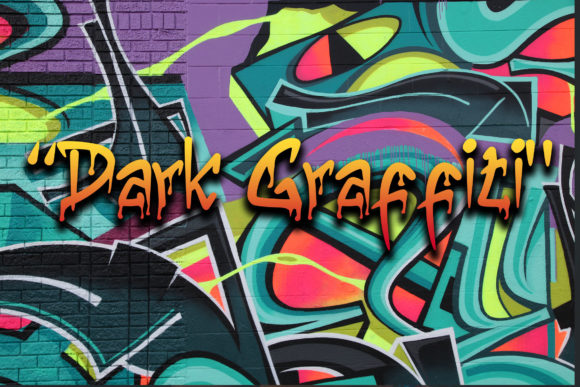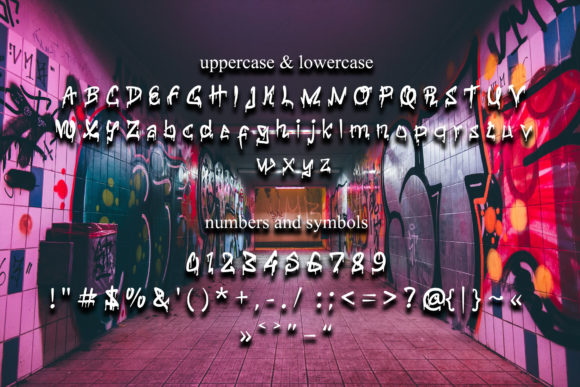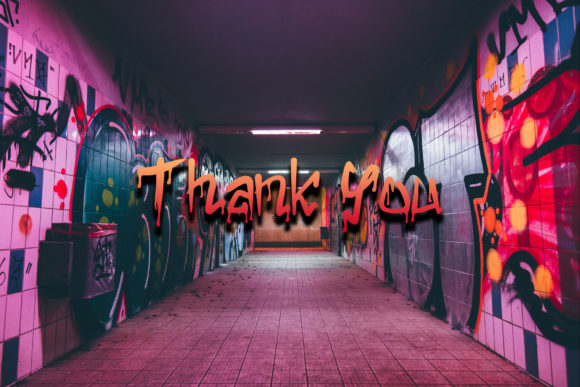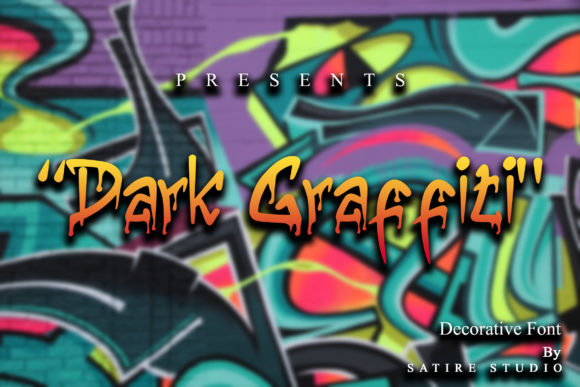
Drak Graffiti Font: Elevate Your Designs with a Touch of Urban Flair
Are you a designer or crafter looking to add a dash of edginess to your creations? Look no further than the Drak Graffiti Font! This decorative font is perfect for those who want to infuse their designs with a melting graffiti style that’s sure to turn heads. In this article, we’ll dive into the world of Drak Graffiti Font, exploring its features, uses, and benefits.
What is Drak Graffiti Font?
Dark Graffiti, also known as Drak Graffiti Font, is a unique and decorative font that boasts melting graffiti-style characters. Its distinctive look is perfect for creating eye-catching designs that demand attention. Whether you’re working on invitations, greeting cards, branding materials, business cards, quotes, posters, or more, this font is sure to elevate your creations.
Key Features of Drak Graffiti Font
- Melting Graffiti Style: The Drak Graffiti Font features characters that appear to be melting, giving it a dynamic and edgy look.
- Decorative: This font is perfect for decorative designs, adding a touch of urban flair to any project.
- Versatile: Use it for a wide range of applications, from invitations and greeting cards to branding materials, business cards, and posters.
Uses of Drak Graffiti Font
The Drak Graffiti Font is incredibly versatile, making it suitable for various design projects. Here are some ideas to get you started:
- Invitations: Add a touch of urban chic to your invitations, making them stand out from the crowd.
- Greeting Cards: Create unique and eye-catching greeting cards for special occasions.
- Branding Materials: Use the Drak Graffiti Font to create bold and memorable branding materials, such as logos and brochures.
- Business Cards: Make a statement with your business cards, showcasing your personality and style.
- Posters: Create striking posters that grab attention and leave a lasting impression.
- Quotes: Add a touch of graffiti style to your quotes, making them perfect for social media posts or inspirational posters.
Benefits of Using Drak Graffiti Font
So, why should you choose the Drak Graffiti Font for your designs? Here are some benefits:
- Unique Look: The melting graffiti style of this font ensures your designs will stand out from the crowd.
- High-Quality: This font is designed with high-quality characters, ensuring it looks great in any design.
- Versatile: Use it for a wide range of applications, from digital designs to print materials.
Tips for Using Drak Graffiti Font
To get the most out of the Drak Graffiti Font, here are some tips:
- Experiment with Colors: Try out different colors to find the perfect combination that complements your design.
- Mix and Match: Combine the Drak Graffiti Font with other fonts to create a unique and eye-catching design.
- Keep it Simple: Don’t overcomplicate your design – sometimes, less is more.
In conclusion, the Drak Graffiti Font is a unique and versatile decorative font that’s perfect for designers and crafters looking to add a touch of urban flair to their creations. With its melting graffiti-style characters, this font is sure to elevate your designs and make them stand out from the crowd. Whether you’re working on invitations, greeting cards, branding materials, or posters, the Drak Graffiti Font is an excellent choice.